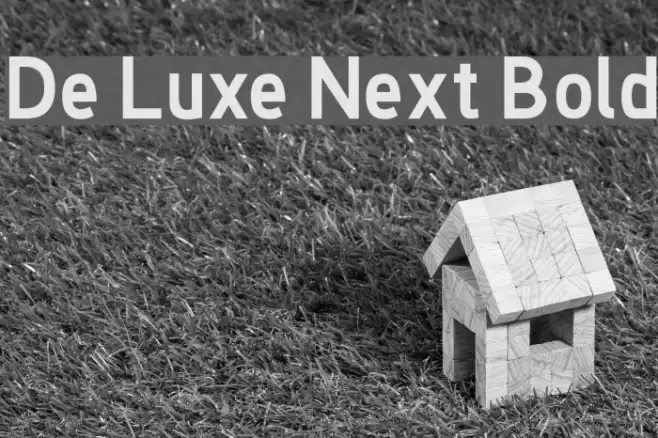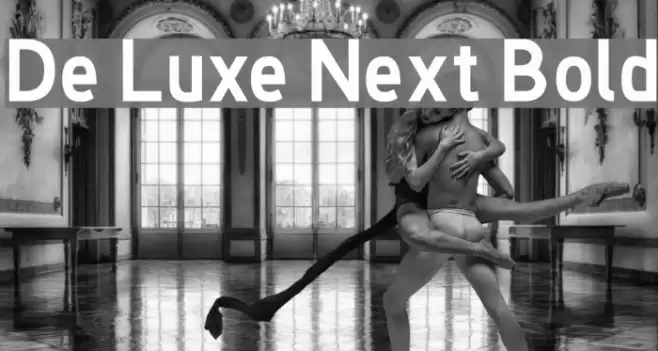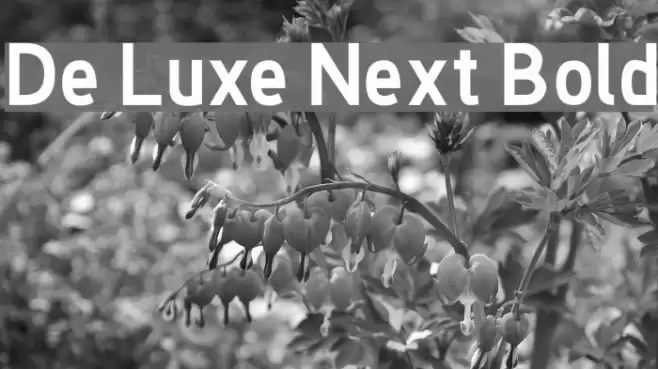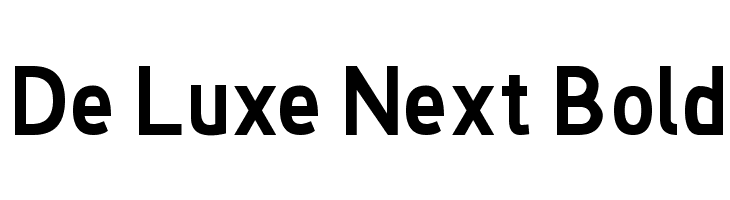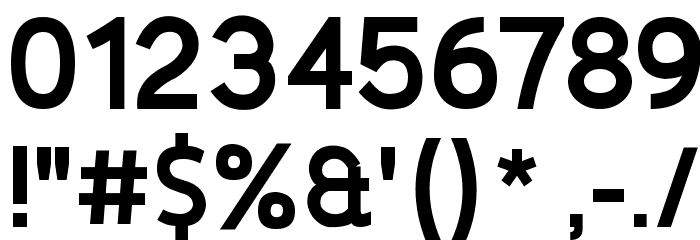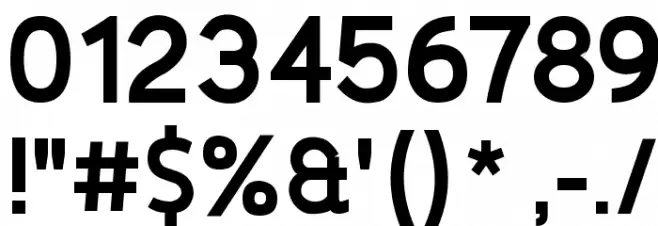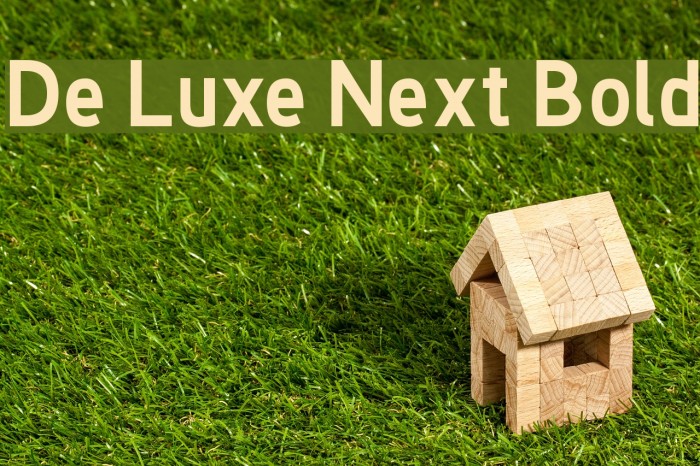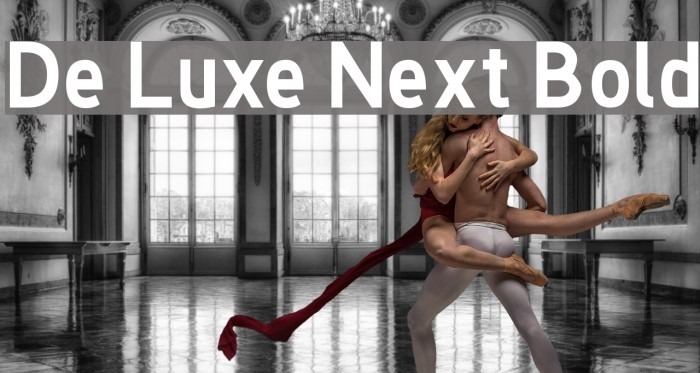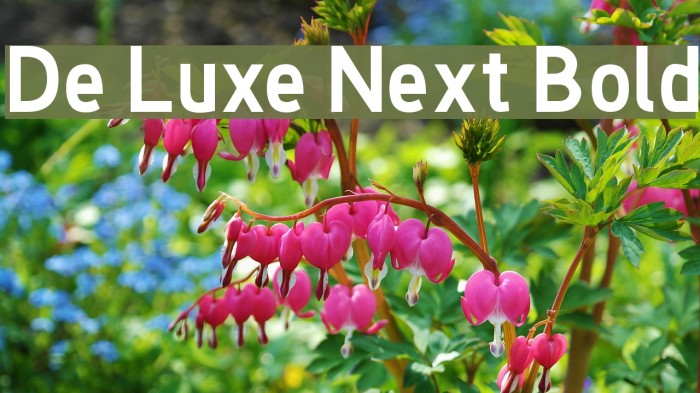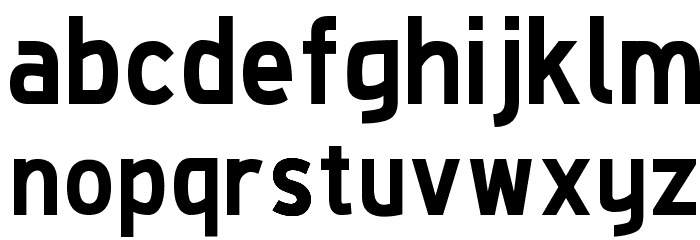
De Luxe Next Bold Font
De Luxe Next Bold Description
This font features a bold and modern sans-serif design, characterized by clean lines and a strong presence. The uppercase letters are uniform in height, providing a sense of stability and balance. The lowercase letters maintain a consistent style, with rounded edges that add a touch of softness to the overall boldness. Numbers are clear and legible, making them suitable for various applications. Special characters are well-defined, ensuring versatility in usage. The font's simplicity and clarity make it ideal for projects that require a strong visual impact without sacrificing readability.
A bold, modern sans-serif font with clean lines and strong presence from Uncategorized fonts.
- Proposed Projects: Ideal for branding, advertising, headlines, and digital media where a bold statement is needed.
- Use Case: Headlines, Logos, Digital Media